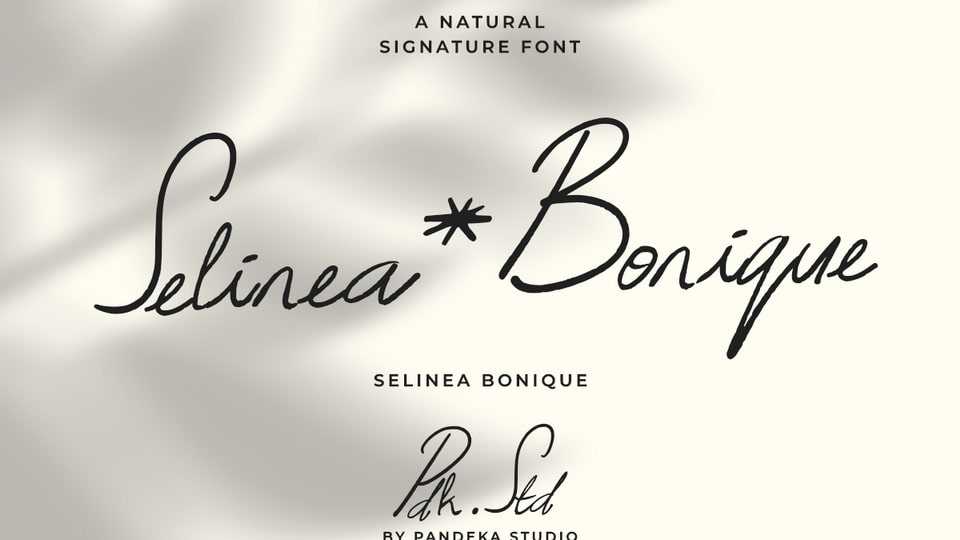
Download Selinea Bonique font, a natural signature script with a touch of elegant handwriting and stylish calligraphy. Designed with soft, inky strokes, it flows effortlessly for a modern typography feel.